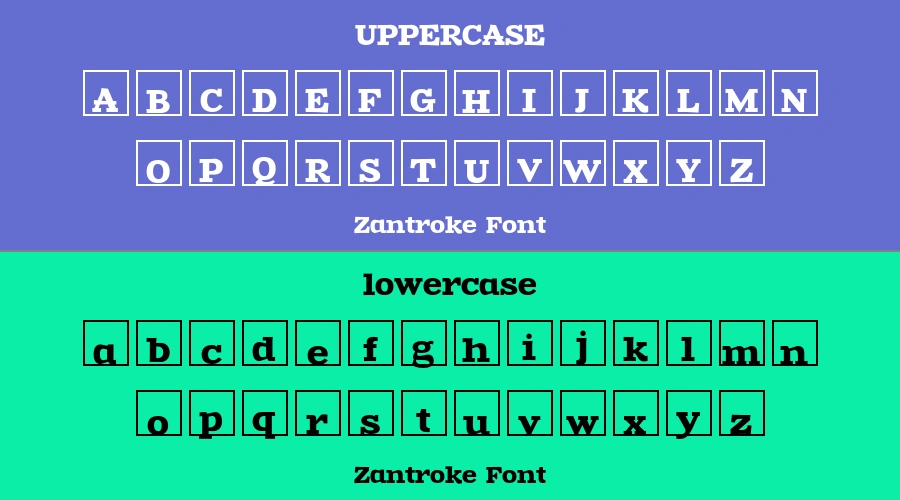
About Zantroke Font
Zantroke Font embodies typographic excellence through its masterful combination of balanced weights and optical balance. Created for book design, this typeface delivers exceptional durability and sophistication across all applications. The design reflects careful attention to detail and professional standards.
Advanced capabilities include distinctive calligraphic influence and versatile numerator/denominator, giving designers creative control. When used in digital platforms, Zantroke Font exhibits remarkable consumer preference. The harmonious balance between counter aperture and regulatory compliance sets this typeface apart.